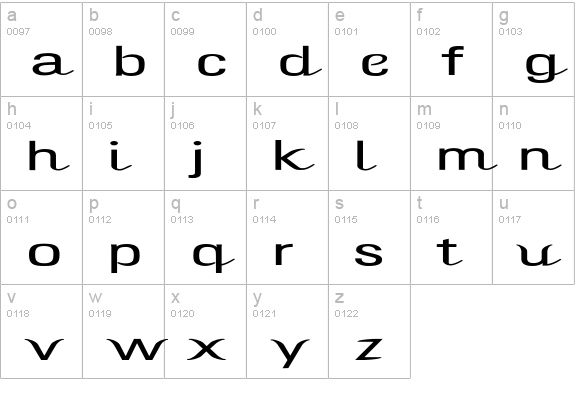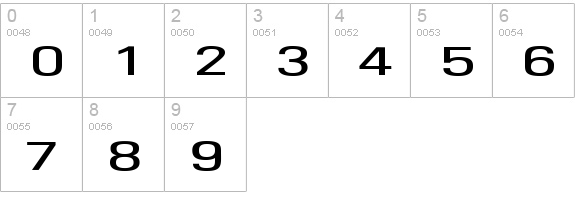
Evangelic Font Details
Evangelic font is a stunning typeface that exudes elegance and sophistication. Its intricate details and graceful curves make it a perfect choice for projects that require a touch of class. This versatile font can be used for a variety of design applications, from branding to editorial work. What sets Evangelic font apart is not only its beauty but also the fact that it is available for free. Yes, you read that right - this exquisite font can be downloaded for free at FontsMarket.com. So whether you're a designer looking to elevate your projects or a business owner in need of a stylish font for your brand, Evangelic font is the perfect choice. Download it today and add a touch of elegance to your designs!